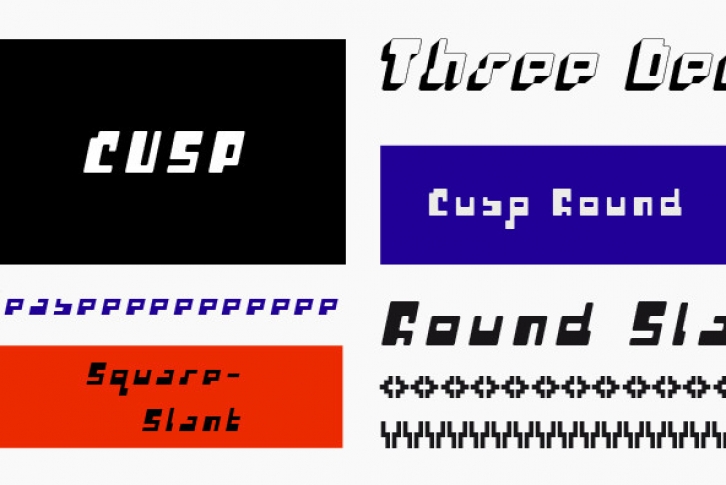
This typeface was originally inspired by Art Deco lettering. During the development of the letterforms, a strick DeStijl grid was imposed. The lowercase letterforms were created with the influences of rave/techno design styles. The result is a distinctly contemporary display font.
The P22 Cusp Family contains 4 fonts: P22 Cusp Round, P22 Cusp Round Slant, P22 Cusp Square, P22 Cusp Square Slant. This font was designed as a display font and may be a bit taxing on the eye at smaller point sizes.
Designed by James Grieshaber.